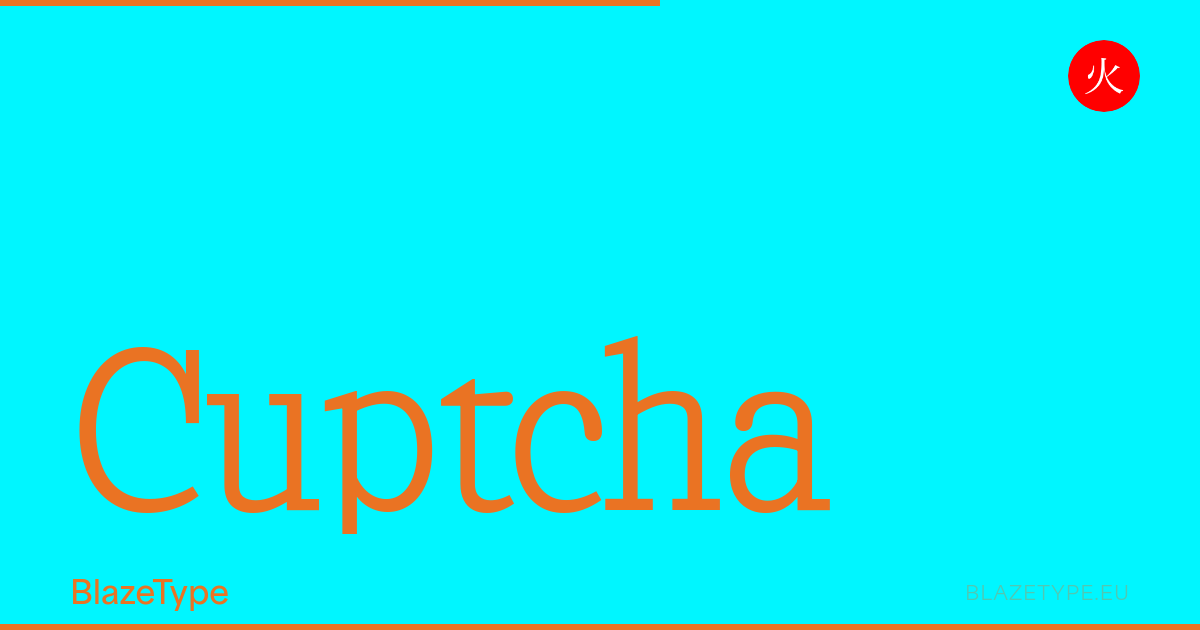
Cuptcha specimen
slab-serif
Cuptcha
Cuptcha is a slab typeface inspired by the wonky, distorted letters found in website security tests. The name fuses "cup" with captcha, a container holding a collection of letters, much like a typeface itself. Those raw, chaotic letterforms were refined into a consistent typographic system, where the sturdiness of squared slab serifs contrasts with soft, rounded terminals, finding a natural balance in the details.